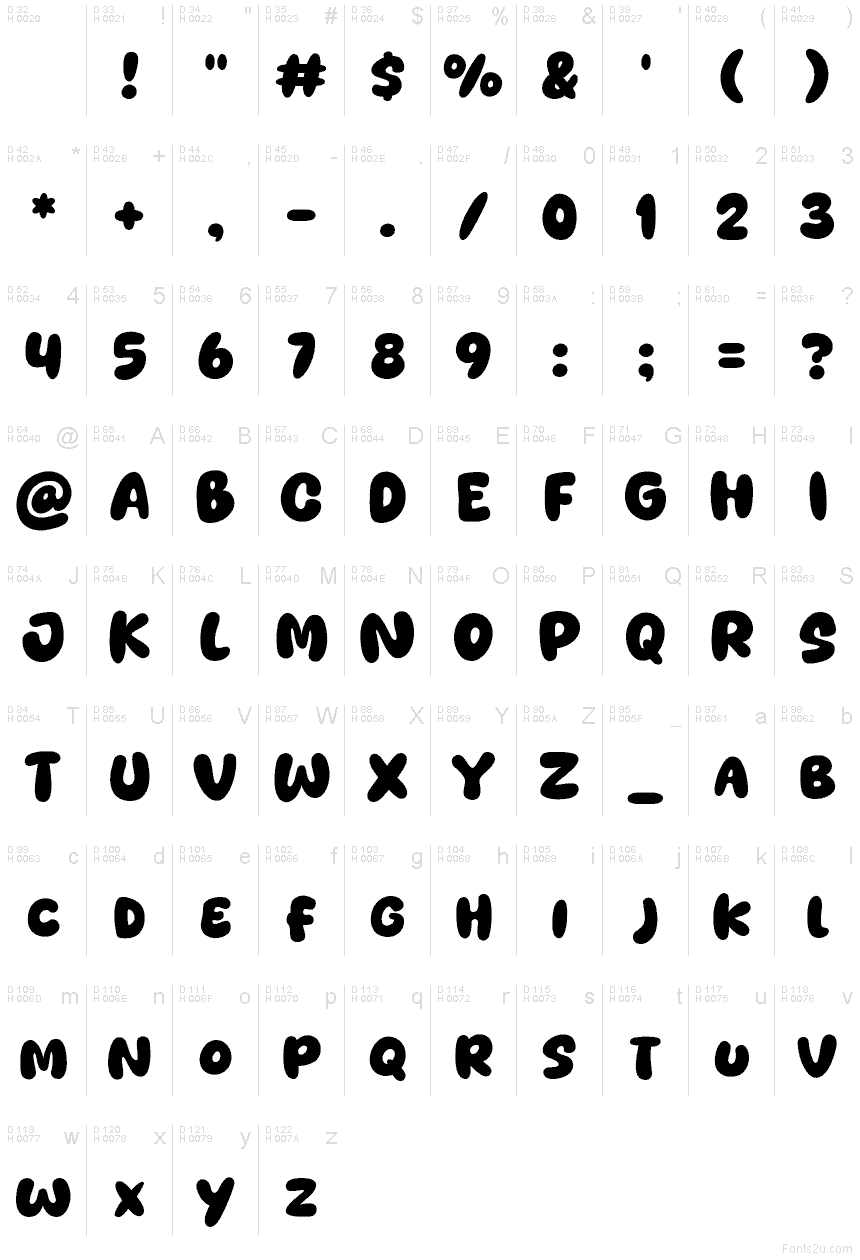
Way Come
Way Come font by Khurasan is a cartoon display font with bubbly, rounded features. The playful, informal letters hold a casual yet neat feel to them that makes the entire typeface look youthful and friendly at first sight. As you reflect on its free-to-use aspect, remember that simple details make all the difference when designing visual posters or covers.
Font additions like Way Come are ideal for branding, advertising, or packaging solutions for children’s brands including toys, daycare centers and playgrounds. Other use projects can include colorful infographics, T-shirt prints for kids’ clothing stores, board games covers and instruction booklets as well as stickers and pin designs!